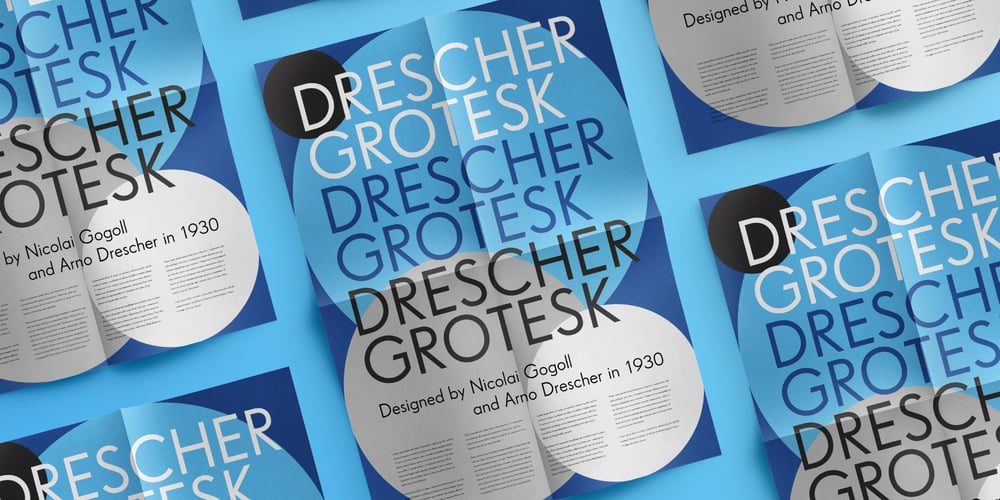
Drescher Grotesk BT Font Family was designed by Arno Drescher, Nicolai Gogoll and published by Bitstream. Drescher Grotesk BT contains 7 styles and family package options. Mr. Gogoll’s successful revival of Arno Drescher’s Super Grotesk was awarded the 1999 Kurt Christians Award. The Drescher Grotesk family consists of seven roman weights, including a version designed for use at small point sizes. Drescher Grotesk is a classic German geometric design, complete with the original “angled” brackets.